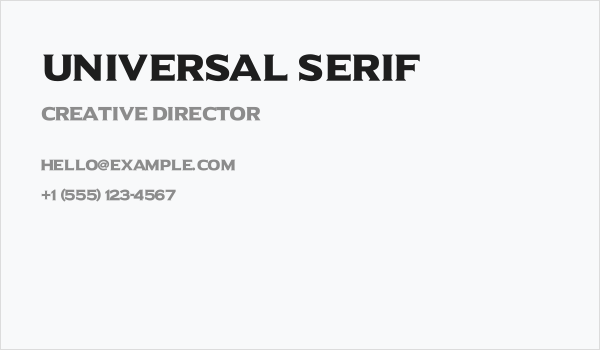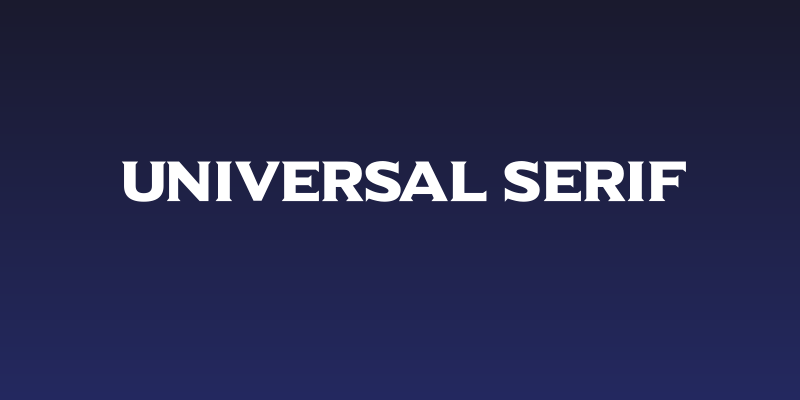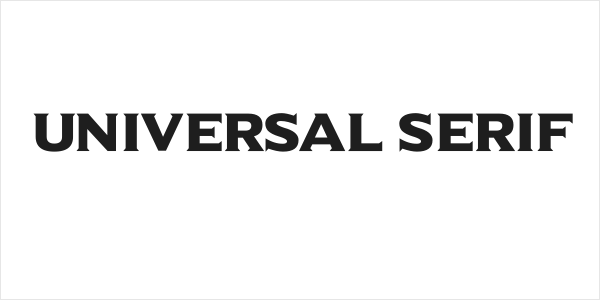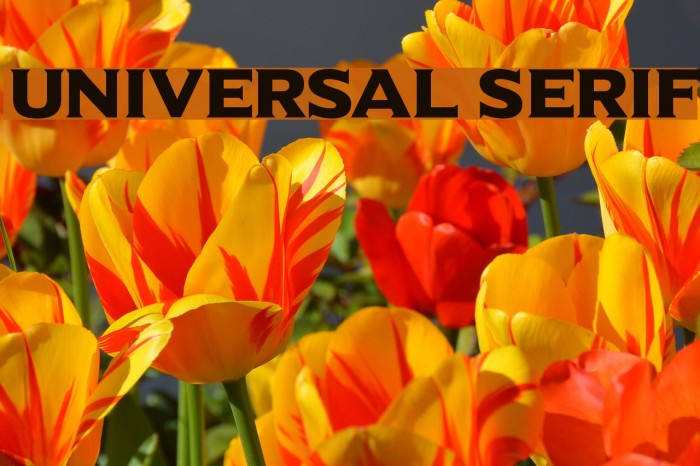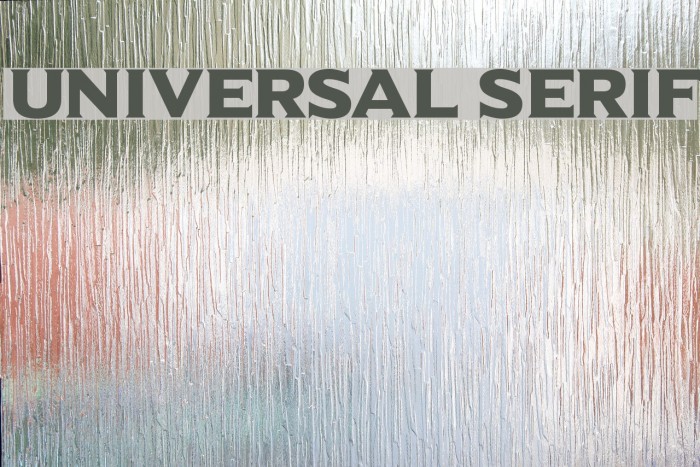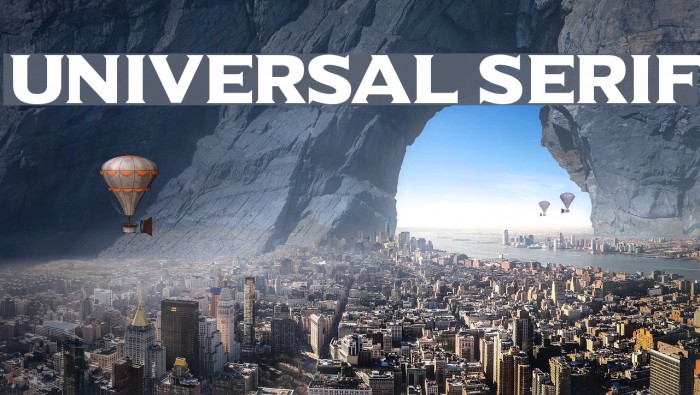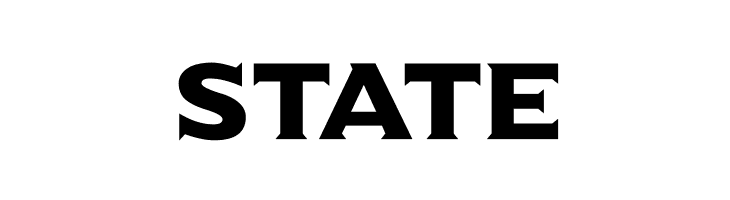
Universal Serif Font
Universal Serif Description
This font features bold, strong serifs with a commanding presence. The uppercase letters are robust and evenly spaced, providing a sense of stability and authority. The lowercase letters maintain a consistent weight, complementing the uppercase with a harmonious balance. The numerals are clear and legible, designed to stand out with their bold strokes. Special characters are crafted with precision, ensuring they integrate seamlessly with the rest of the typeface. The overall design is modern yet timeless, making it versatile for various applications.
| Use Case | Headlines, Logos, Branding |
| Proposed Projects | Ideal for headlines, branding, editorial design, and any project requiring a strong, authoritative typeface. |